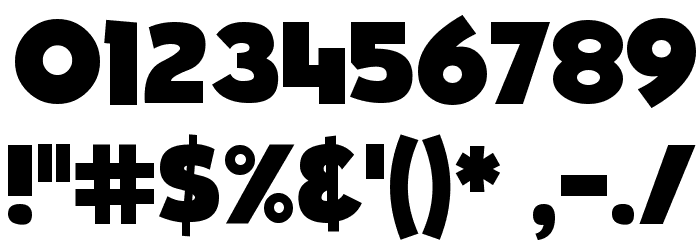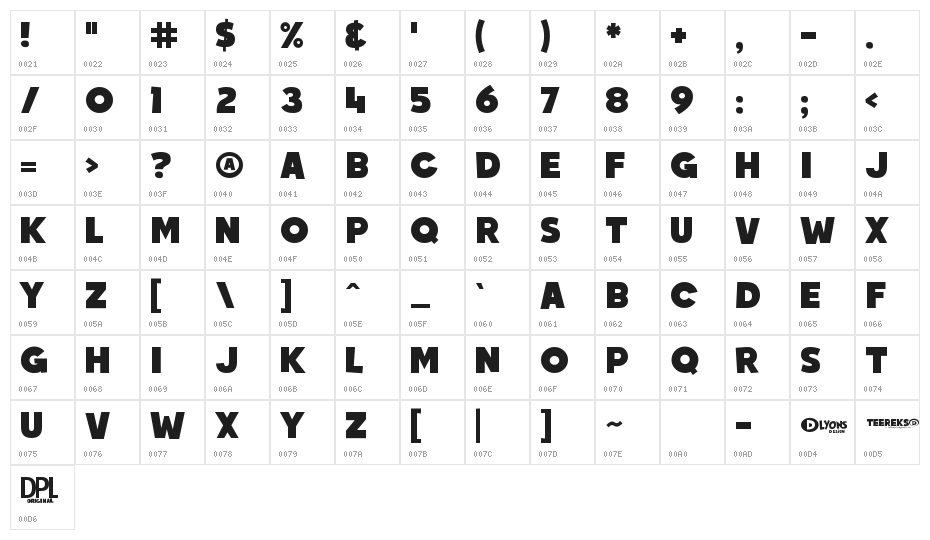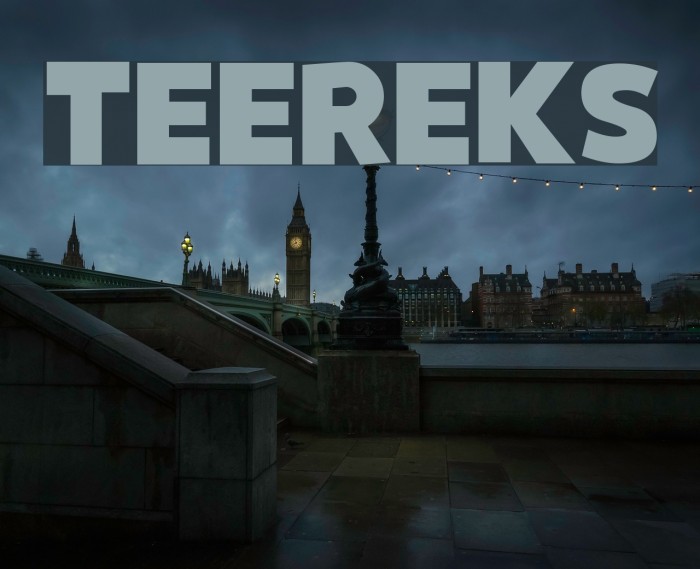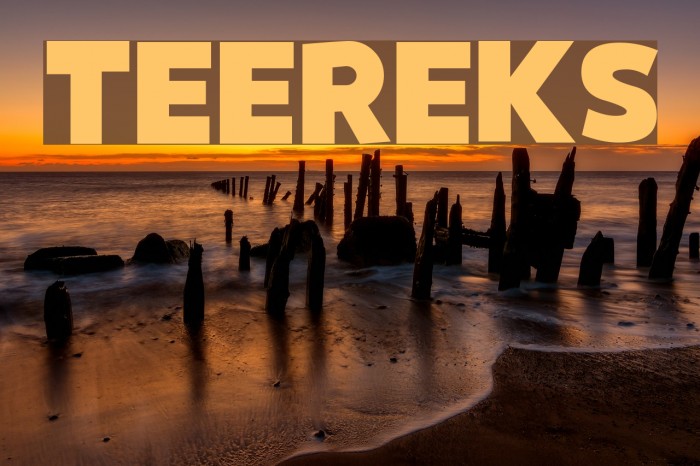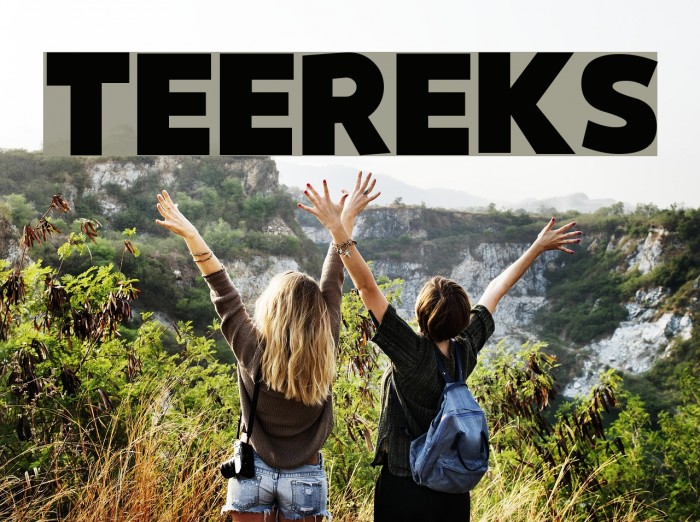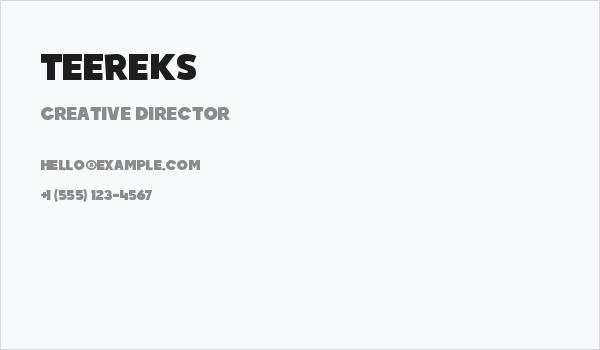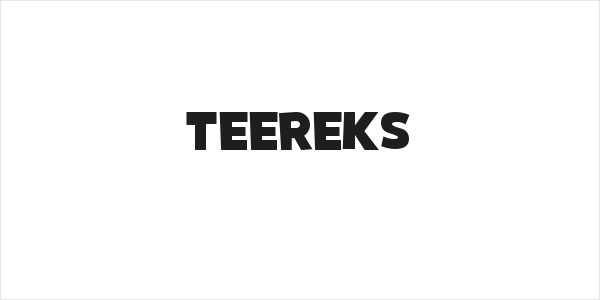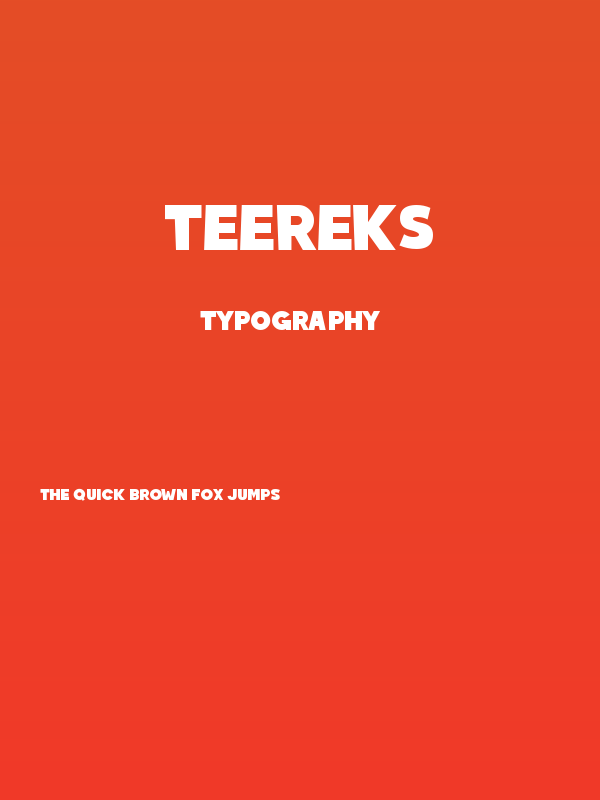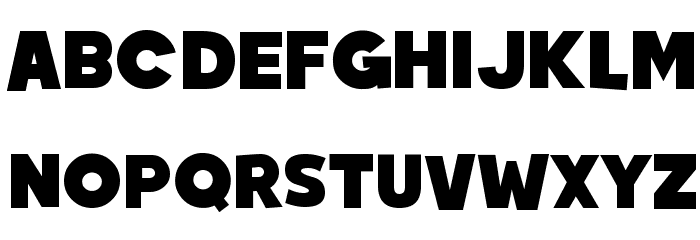
Teereks Font
Teereks Description
This bold and impactful font features thick, uniform strokes that create a strong visual presence. The characters are designed with a geometric precision, offering a modern and assertive look. The uppercase letters are particularly striking, with a consistent height and width that enhances readability. The numerals are equally bold, ensuring they stand out in any context. Special characters maintain the same weight and style, providing a cohesive appearance across all glyphs. This font is ideal for making a statement, with its high contrast and solid structure.
| Proposed Projects | Ideal for branding, headlines, posters, and any design requiring a bold statement. |